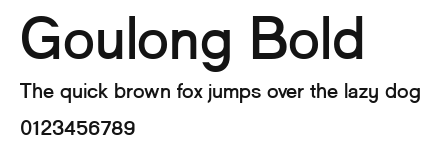
Goulong Bold Preview
About Goulong Bold.ttf
Goulong Bold.ttf is a modern, elegant sans-serif font designed for ultimate readability and visual harmony. Perfect for branding, headlines, web design, and print materials.